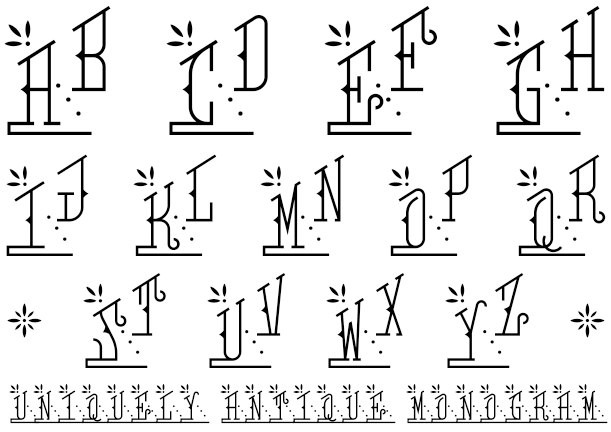
MFC Falconer Monogram
About MFC Falconer Monogram
The inspiration source for MFC Falconer Monogram is an unusual hand-drawn design from a vintage embroidery publication which relies on rigid geometric letterforms to create an upward stepping framework. This monogram which evokes visions of it embossed…